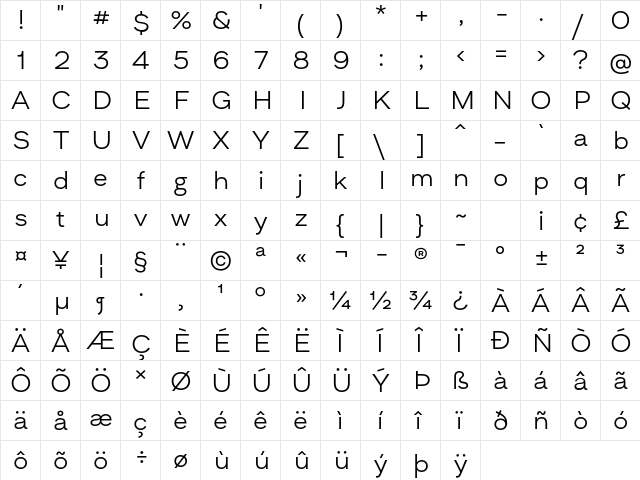
Asket Extended Light
| Foundry | Glenjan |
| Designer | Glenjan |
Design Context for Asket Extended Typeface
Asket Extended is a composed and adaptable typeface that performs quietly and consistently across a wide range of design contexts. The delicate stroke weight brings airiness and refinement to layouts.